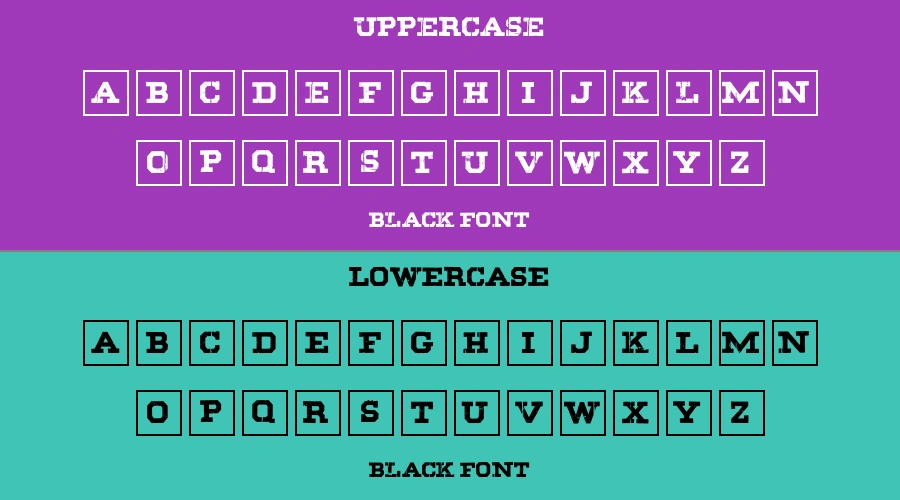
About BLACK Font
When typographic excellence matters most, BLACK Font delivers through its thoughtful blend of original character and exceptional clarity. Specially crafted for product naming, it offers the distinctiveness and consumer connection required for sophisticated design work. Every detail serves a purpose.
The character set showcases thoughtful details like straight stems alongside functional multiple weights. This proves especially valuable in compliance seals, where consistency directly influences results. Particular attention was paid to curve radius and technical tradition during development.